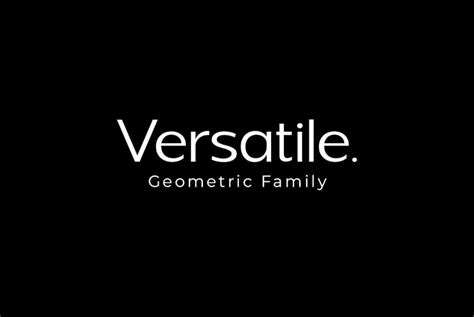
Oscforsythiasc Font: A Versatile Typographic Choice
Hey guys, let’s dive into the world of typography and talk about a font that’s been making some serious waves: Oscforsythiasc . If you’re into design, web development, or just appreciate a good-looking typeface, you’re going to want to hear about this one. We’re going to break down what makes Oscforsythiasc so special, its potential applications, and why it might just become your new go-to font. Get ready to level up your design game!
Unpacking the Oscforsythiasc Font Family
So, what exactly is the Oscforsythiasc font? At its core, it’s a beautifully crafted typeface designed with versatility and readability in mind. The designers behind Oscforsythiasc have put a lot of thought into creating a font that works across a wide range of mediums, from digital interfaces to print materials. We’re talking about a font that balances elegance with clarity , making it suitable for everything from body text to display headlines. When you first lay eyes on it, you’ll notice its clean lines and well-defined characters. It doesn’t scream for attention, but it definitely holds its own, providing a sophisticated yet approachable feel. This is crucial for any font that aims to be widely adopted. A common pitfall for many fonts is trying to be too unique, which can sometimes compromise legibility. Oscforsythiasc, however, strikes that perfect chord. It has just enough character to be distinctive without becoming distracting. Think of it as the font equivalent of a perfectly tailored suit – classic, stylish, and always appropriate. The designers have likely spent countless hours refining each glyph, ensuring consistent stroke weights, proper kerning, and optimal spacing. This attention to detail is what separates a good font from a truly great one. You can expect a range of weights and styles within the Oscforsythiasc family, which is a huge plus for designers. Whether you need a light, airy font for a delicate design or a bold, impactful one for a strong statement, Oscforsythiasc likely has you covered. This flexibility means you can maintain a cohesive typographic hierarchy throughout your projects, using different weights of the same font family to guide the reader’s eye. It’s all about creating a harmonious visual experience, and a robust font family is key to achieving that. We’ll explore some specific scenarios where this font truly shines, but for now, just know that the foundation of Oscforsythiasc is built on solid design principles and a deep understanding of typographic needs in today’s diverse design landscape.
Why Oscforsythiasc is a Designer’s Dream
When we talk about a font being a ‘designer’s dream,’ we mean it ticks all the boxes. Reliability , readability , and aesthetic appeal are paramount, and Oscforsythiasc seems to deliver on all fronts. For starters, its design is inherently modern and clean . This makes it a perfect fit for contemporary websites, branding projects, and user interfaces where a fresh, uncluttered look is desired. In the digital realm, readability is king. Users are often scanning content, and a font that’s difficult to read can lead to frustration and abandonment. Oscforsythiasc, with its clear letterforms and balanced proportions, ensures that your message gets across without a hitch. Imagine using it for an e-commerce site – product descriptions need to be easily digestible, and brand messaging needs to be clear and professional. Oscforsythiasc can handle that with grace. But it’s not just for the digital space, guys. This font also translates beautifully to print. Think brochures, magazines, annual reports, or even book covers. The clarity and sophisticated feel of Oscforsythiasc can elevate any printed material, giving it a polished and premium look. The subtle nuances in its design, like the slight curves or the way certain letters connect, add a touch of personality without compromising its professional edge. This balance is what makes it so versatile. Furthermore, the potential inclusion of various weights and styles within the Oscforsythiasc family is a massive advantage. Having access to light, regular, bold, and perhaps even italic versions allows for nuanced typographic expression. You can use bolder weights for headlines and subheadings to grab attention, while employing lighter weights for longer blocks of text to maintain readability and a sense of calm. This consistent family allows for a unified brand voice, ensuring that all communications feel connected and intentional. It’s the kind of font that doesn’t just fill a space; it enhances the content it surrounds. It plays well with other design elements, too. Whether you’re pairing it with illustrations, photographs, or other graphic components, Oscforsythiasc tends to integrate seamlessly, providing a stable typographic foundation. It’s the reliable workhorse that every designer needs in their toolkit, ready to tackle a wide array of design challenges with confidence and style. So, if you’re looking for a font that offers both substance and style, Oscforsythiasc is definitely worth exploring.
Applications of the Oscforsythiasc Font
Now, let’s get practical. Where can you actually use the Oscforsythiasc font to make your projects pop? The beauty of a well-designed font like Oscforsythiasc lies in its adaptability. One of the most obvious and impactful applications is in web design and UI/UX . As mentioned, readability is paramount online. Oscforsythiasc’s clean and modern aesthetic makes it ideal for website body text, navigation menus, button labels, and even longer-form content like blog posts or articles. Its clarity ensures that users can easily scan and absorb information, leading to a better overall user experience. For brands, using Oscforsythiasc can convey a sense of professionalism and trustworthiness, which is crucial for building customer confidence. Think about the consistency it can bring to your entire digital presence – from your website to your social media graphics. Another significant area where Oscforsythiasc shines is in branding and corporate identity . If you’re designing a logo, a brand guide, or marketing collateral for a company, this font can lend an air of sophistication and modernity. Its versatile nature means it can be used for everything from the company’s official letterhead to their advertising campaigns. A strong, consistent typographic voice is key to brand recognition, and Oscforsythiasc provides a solid foundation for that. Editorial design is another field where this font would be a fantastic choice. Magazines, newspapers, and book publishers often require typefaces that are both legible for long reading sessions and visually appealing. Oscforsythiasc can work wonders for article headlines, subheadings, and the main text blocks of publications. Its ability to convey a sense of authority and clarity makes it suitable for a wide range of editorial content, from serious news to lifestyle features. Marketing and advertising materials also greatly benefit from a font like Oscforsythiasc. Whether you’re creating posters, flyers, digital ads, or social media posts, this font can help your message stand out effectively. Its clean lines ensure that key information is communicated clearly, while its stylish undertones can help attract the attention of your target audience. Imagine using it for a promotional campaign – the font can convey the value and quality of the product or service being advertised. Even in presentations , Oscforsythiasc can make a difference. Using it for slides ensures that your text is easily readable, even from a distance in a conference room. It adds a professional polish to your slides, making your presentation more impactful and memorable. Essentially, anywhere you need clear, stylish, and versatile typography, Oscforsythiasc is a strong contender. It’s not a niche font; it’s a workhorse that adapts to your needs, making your design communication more effective and visually pleasing. Guys, the key takeaway here is that this font isn’t just pretty; it’s functional across a massive spectrum of design needs.
Tips for Using Oscforsythiasc Effectively
Alright, you’ve got the font, now how do you make the most of it? Using any font effectively is about more than just dropping it into your design. It’s about understanding its nuances and employing best practices. With Oscforsythiasc , a few key strategies can really elevate your work. First off, consider the hierarchy . This is fundamental in design, and Oscforsythiasc, especially if it comes in multiple weights, is perfect for this. Use bolder weights for titles and headings to capture attention, and use lighter or regular weights for body text to ensure readability. Don’t be afraid to play with size variations too. A larger, bolder headline followed by smaller, lighter subheadings and then regular body text creates a clear visual path for the reader. Pairing Oscforsythiasc with other fonts can also yield stunning results, but choose wisely. Since Oscforsythiasc has a clean, modern feel, it often pairs well with serif fonts for a classic contrast, or with more distinctive display fonts for headings if you want a bolder statement. The key is to ensure the fonts complement each other rather than compete. Test different combinations to see what best fits the mood and message of your project. Pay attention to spacing (kerning and leading) . Even the most beautiful font can look messy if the spacing between letters (kerning) or lines (leading) is off. Most design software offers controls for this. For Oscforsythiasc, ensure that the letterforms have comfortable breathing room. This is especially important for longer blocks of text where awkward spacing can quickly become distracting and fatiguing for the reader. Use it thoughtfully in different contexts . While Oscforsythiasc is versatile, consider the specific tone you want to convey. For very formal or traditional documents, you might opt for a classic serif. However, for modern branding, websites, or publications aiming for a clean, approachable, and sophisticated feel, Oscforsythiasc is often an excellent choice. Think about the emotional response you want to evoke. Its clean lines can feel dynamic and innovative, or calm and informative, depending on how you use it. Don’t overuse it . While it’s a great font, using Oscforsythiasc for every single element in a complex design might make it feel monotonous. Sometimes, using it as a primary font for headlines and key messages, and a simpler, more neutral font for secondary information, can create a more balanced and visually interesting composition. Test its legibility at different sizes . Ensure that Oscforsythiasc remains clear and readable whether it’s used as a tiny footnote or a large billboard. If it starts to lose clarity or become pixelated at certain sizes, you might need to reconsider its application or use a different font variant. Guys, the goal is to make your message clear and engaging. Oscforsythiasc is a powerful tool to help you achieve that, but like any tool, it requires a bit of skill and intention to wield effectively. Experiment, trust your eye, and always prioritize clarity and the overall user experience. Happy designing!
Conclusion: The Enduring Appeal of Oscforsythiasc
So, to wrap things up, the Oscforsythiasc font has emerged as a truly remarkable asset in the world of typography. Its blend of modern aesthetics , superb readability , and remarkable versatility makes it a standout choice for a wide array of design projects. We’ve explored how its clean lines and balanced proportions are perfect for everything from crisp digital interfaces and engaging web content to sophisticated branding and polished editorial layouts. The potential inclusion of various weights and styles within its family further cements its status as a designer’s dream, offering the flexibility needed to create robust typographic hierarchies and maintain visual consistency across different platforms. Whether you’re crafting a minimalist website, a compelling marketing campaign, or a professional presentation, Oscforsythiasc provides a reliable and stylish foundation. It’s a font that doesn’t just convey information; it enhances it, adding a layer of professionalism and appeal that can significantly impact how your message is received. The attention to detail evident in its design speaks volumes, ensuring legibility and a pleasing visual experience for the end-user. In a crowded digital landscape, a font like Oscforsythiasc cuts through the noise by offering clarity without sacrificing personality. It’s the kind of typeface that makes you feel confident in your design choices, knowing that it will perform well across different applications and devices. It’s the quiet achiever, the reliable workhorse that consistently delivers. So, if you’re on the hunt for a typeface that combines form and function with effortless grace, look no further than Oscforsythiasc. It’s an investment in clearer communication, stronger branding, and ultimately, more successful design outcomes. Keep exploring its potential, experiment with different applications, and watch your projects reach new heights. Guys, this font is a game-changer, and it’s definitely worth adding to your typographic arsenal. You won’t be disappointed!